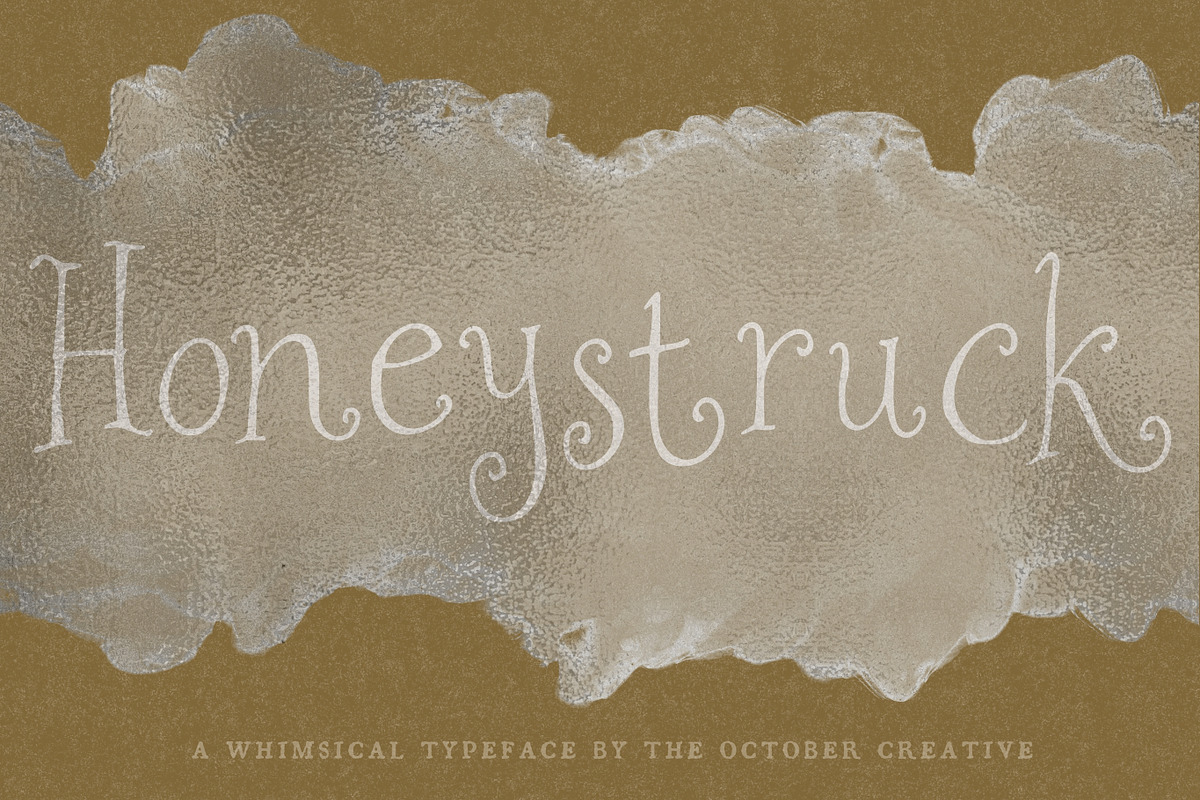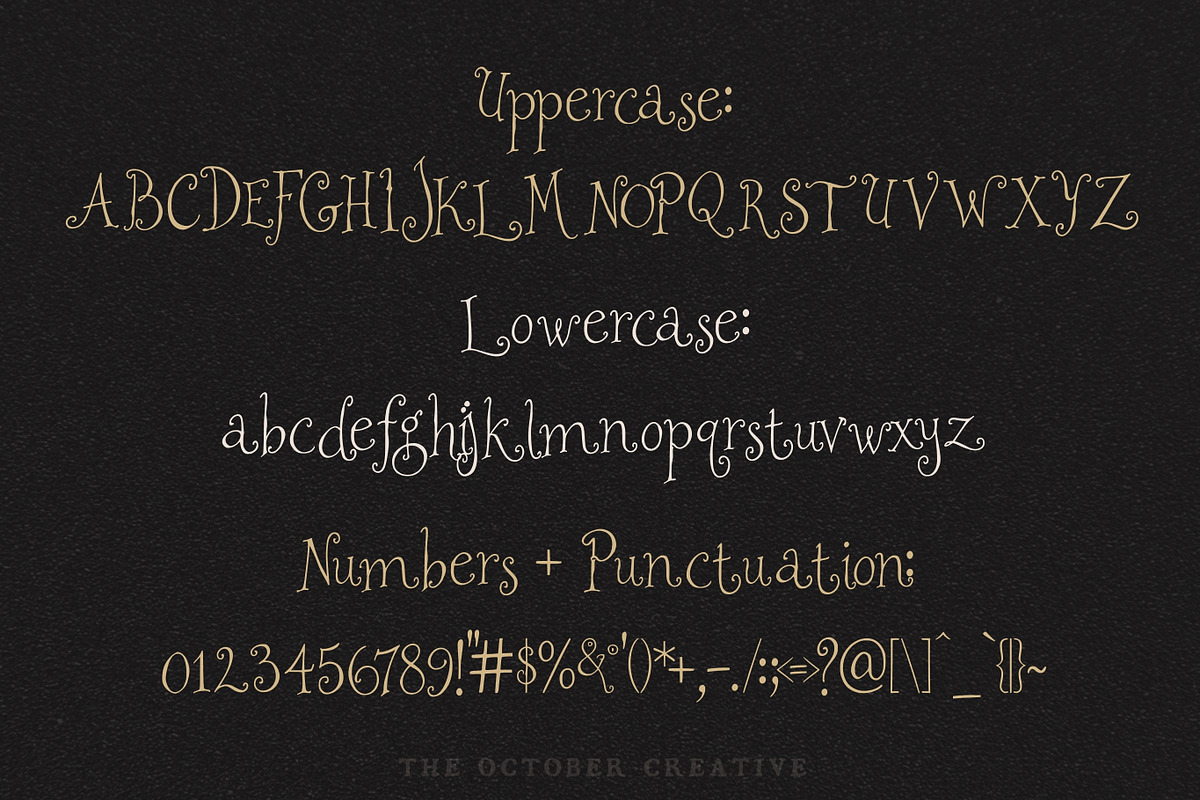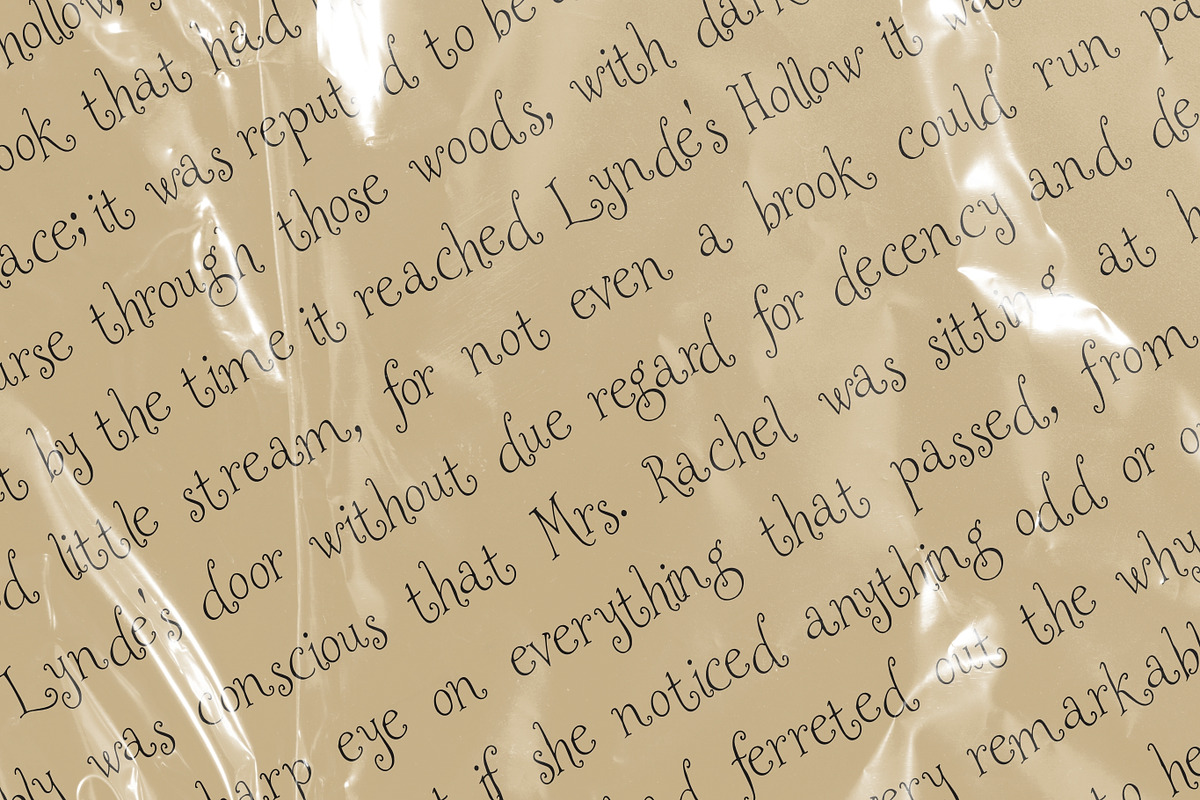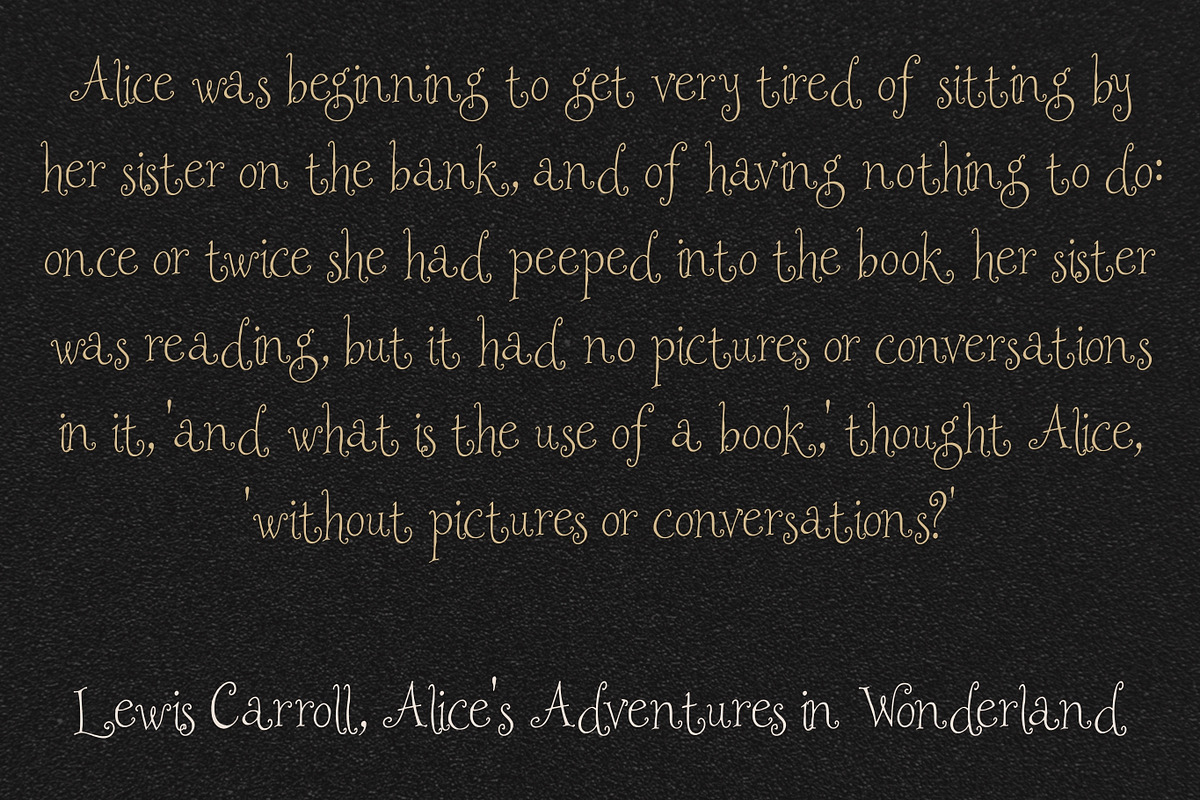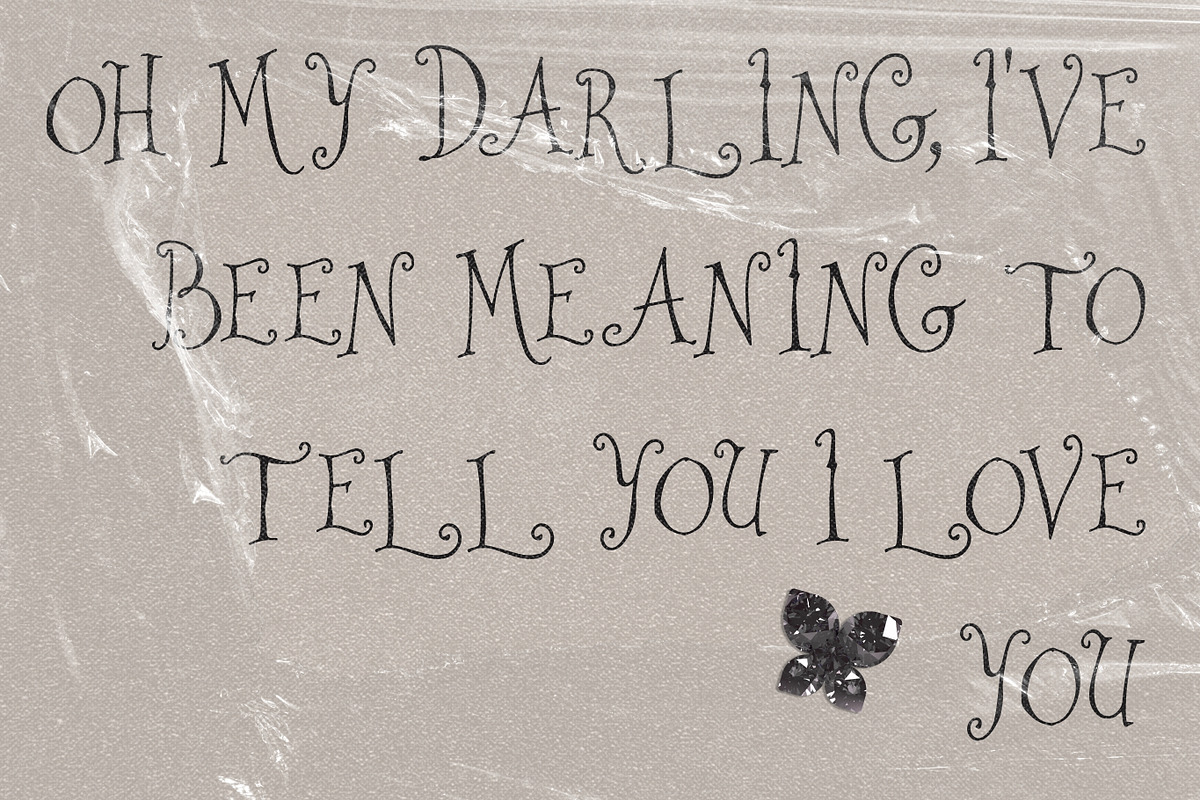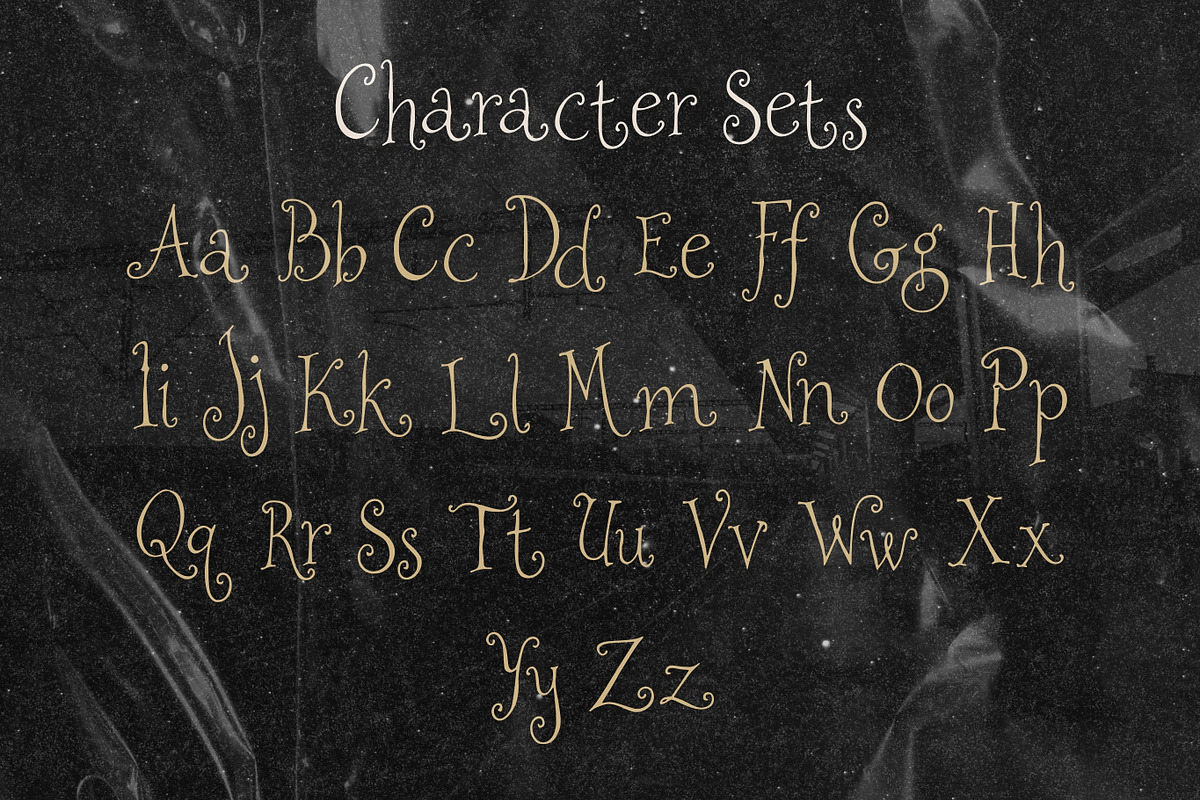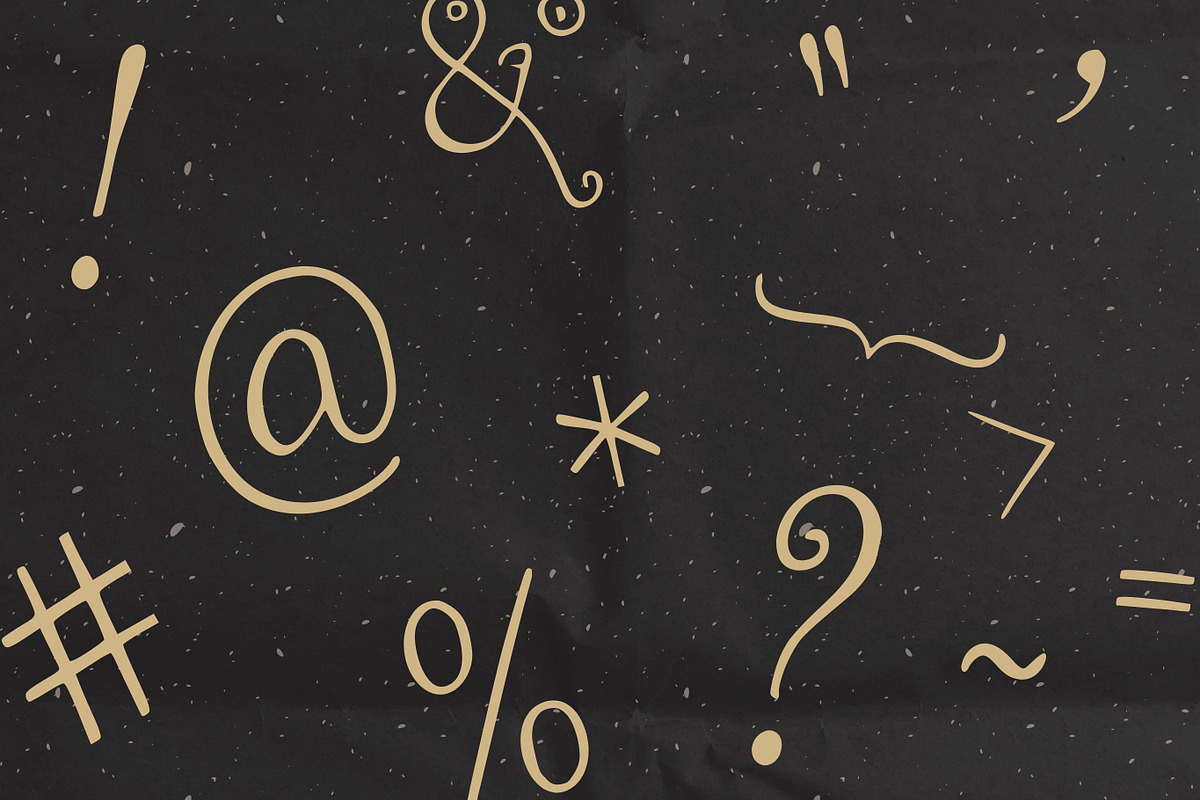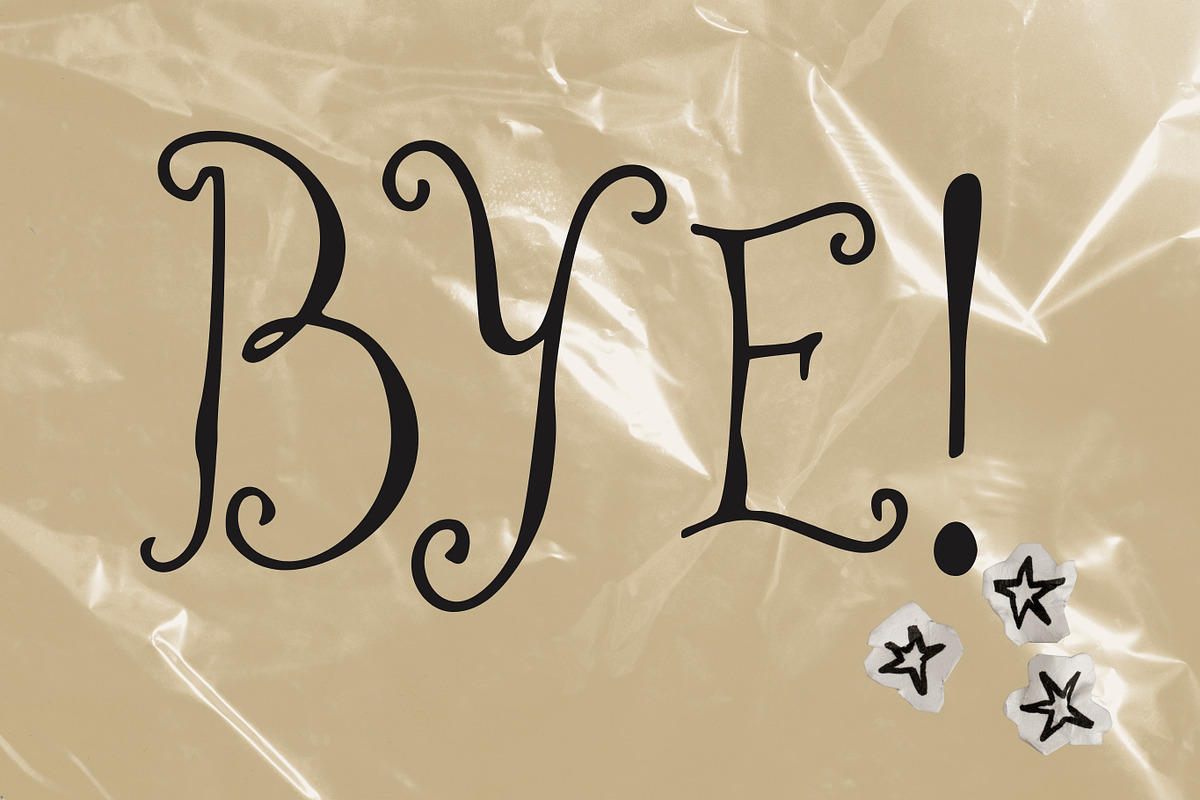
Honeystruck Curly Storybook Serif
Honeystruck is a curly storybook font with spiral ends on its strokes and a friendly, medium weight. It stays easy to read in short paragraphs, so it works for children's book titles and text, nursery prints, recipe cards, and classroom signs.
CHARACTER SET
Uppercase A to Z, lowercase a to z, numerals 0 to 9, and every standard keyboard punctuation mark and symbol: ! " # $ % & ' ( ) * + , - . / : ; < = > ? @ [ \ ] ^ _ ` { | } \~
Curly quotes and apostrophes (‘ ’ “ ” ‚ „), en and em dashes, an ellipsis, and a bullet.
Accented letters: À Á Â Ã Ä Å Ç È É Ê Ë Ì Í Î Ï Ñ Ò Ó Ô Õ Ö Ù Ú Û Ü and their lowercase forms.
LANGUAGES SUPPORTED
English, plus the accented vowels, Ñ, and Ç used in names and everyday words in Spanish, French, Italian, Portuguese, German, and Dutch. Not included: ß, Æ, Ø, Œ, and the upside-down ¿ and ¡.
SPECIAL CHARACTERS